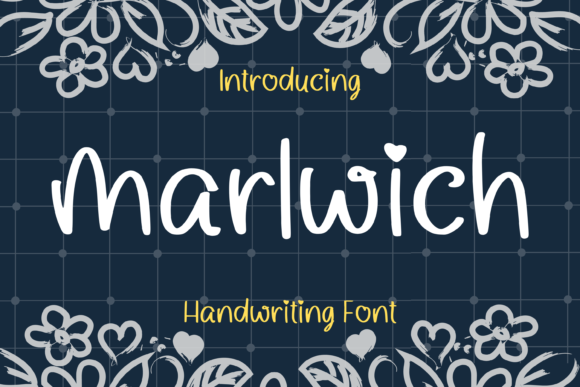
Step into a world of boundless creativity and expressive typography with Marlwich Font, a meticulously handcrafted script font that captures the essence of handwritten charm. Designed with love by nuraisyahamalia1729, Marlwich is a font family that speaks to the heart, evoking a sense of nostalgia and authenticity.
With its adorable and simplistic letterforms, Marlwich Font captivates and invites you to explore a realm of endless possibilities. Picture the allure of chalkboard quotes, the warmth of teaching materials, and the personal touch of hand-lettered designs. Marlwich Font is the perfect companion for adding a touch of individuality and realism to your creative projects.
Dive into the world of Marlwich Font and experience the magic of its whimsical aesthetic. Let your imagination soar as you craft stunning logos that exude a unique personality. Whether it's for your personal brand, a business venture, or a cherished project, Marlwich Font is the key to unlocking a world of limitless expression.
Embrace the power of Marlwich Font and transform your designs into captivating masterpieces. From eye-catching social media posts to unforgettable branding materials, Marlwich Font adds a touch of elegance and authenticity that will set your work apart from the rest. Experience the joy of creating logos that resonate, designs that inspire, and projects that leave a lasting impression.
Elevate your creative vision and embark on a journey of self-expression with Marlwich Font. Let your words dance off the page with grace and charm, captivating your audience with every stroke. Discover the endless possibilities that await you as you unlock the true potential of Marlwich Font.